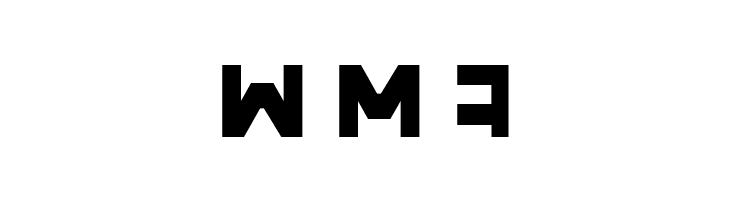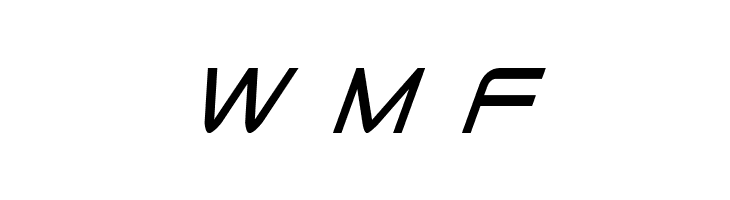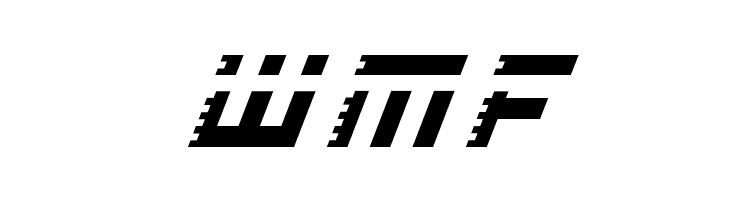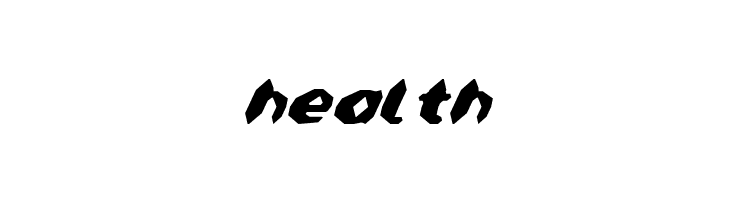
A bold, geometric, and condensed font with a modern, edgy style.
A bold, geometric, and condensed font with sharp angles and a strong visual impact.
A bold, geometric font with angular lines and a semi-condensed width.
A bold, condensed, and futuristic font with geometric shapes and sharp angles.
A futuristic, geometric font with a condensed and angular style.
A futuristic, condensed italic font with sharp angles and dynamic style.
A bold, geometric, and condensed font with a modern industrial style.
A bold, condensed, and italic font with a modern, dynamic style.
A bold, condensed, italic font with a pixelated, digital aesthetic.
A bold, pixelated font with a condensed, digital style.
A bold, angular, and condensed italic font with a dynamic and edgy style.
A bold, angular, and condensed font with a futuristic design.
A futuristic, geometric font with blocky, angular letterforms and a condensed style.
A bold, condensed italic font with a modern and dynamic style.
A bold, geometric, and condensed font with rounded corners and a modern industrial feel.
A bold, condensed italic font with a modern and dynamic style.
A bold, angular, and condensed font with a dynamic and historical flair.
A futuristic, italicized, and condensed font with angular lines and geometric shapes.
A futuristic, geometric font with a condensed and angular design.
A futuristic, angular, and condensed italic font with a bold, modern style.
A geometric, futuristic font with sharp angles and a condensed style.
A bold, geometric, and condensed font with a modern, futuristic style.
A bold, condensed italic font with a modern, futuristic style.
A bold, condensed font with a strong, modern presence.
A bold, italicized, and condensed font with a modern, dynamic style.
A bold, futuristic font with a condensed and geometric design.
A bold, condensed italic font with a modern, geometric style.
A bold, condensed, and italicized font with sharp angles and dynamic style.
A bold, condensed, and geometric font with a strong industrial feel.
A bold, 3D, condensed font with a modern, geometric style.
A bold, 3D, condensed italic font with a futuristic outline style.
A modern, condensed italic font with bold, rounded characters and a futuristic style.
A bold, futuristic font with rounded edges and a condensed, tech-inspired design.